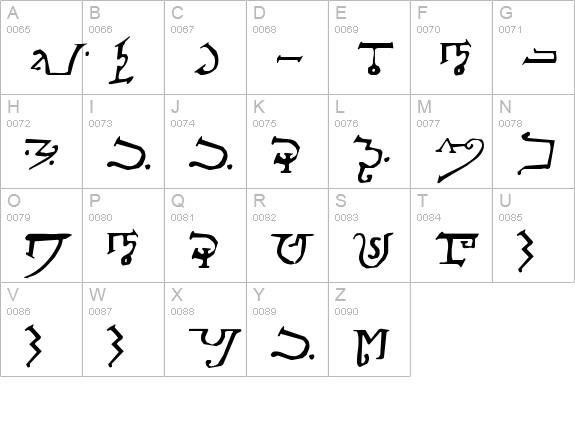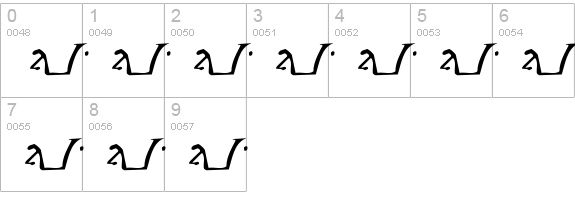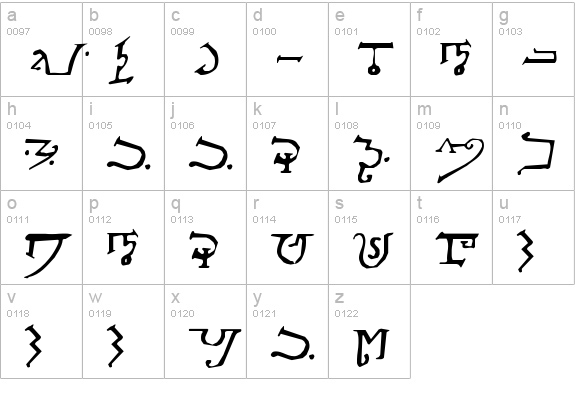
The Alphabet of the Magi font is a mystical and enchanting typeface that embodies the ancient symbols and wisdom of the Magi. This unique font features intricate and intricate letterforms that are perfect for adding a touch of magic and mystery to your designs. The Alphabet of the Magi font is versatile and can be used for a wide range of projects, from branding and packaging to invitations and posters. What makes the Alphabet of the Magi font even more special is that it is available for free download at FontsMarket.com. This means that you can easily access this captivating font and use it in your projects without any cost. Embrace the power and allure of the Alphabet of the Magi font in your creations and let its magical essence elevate your designs to new heights.